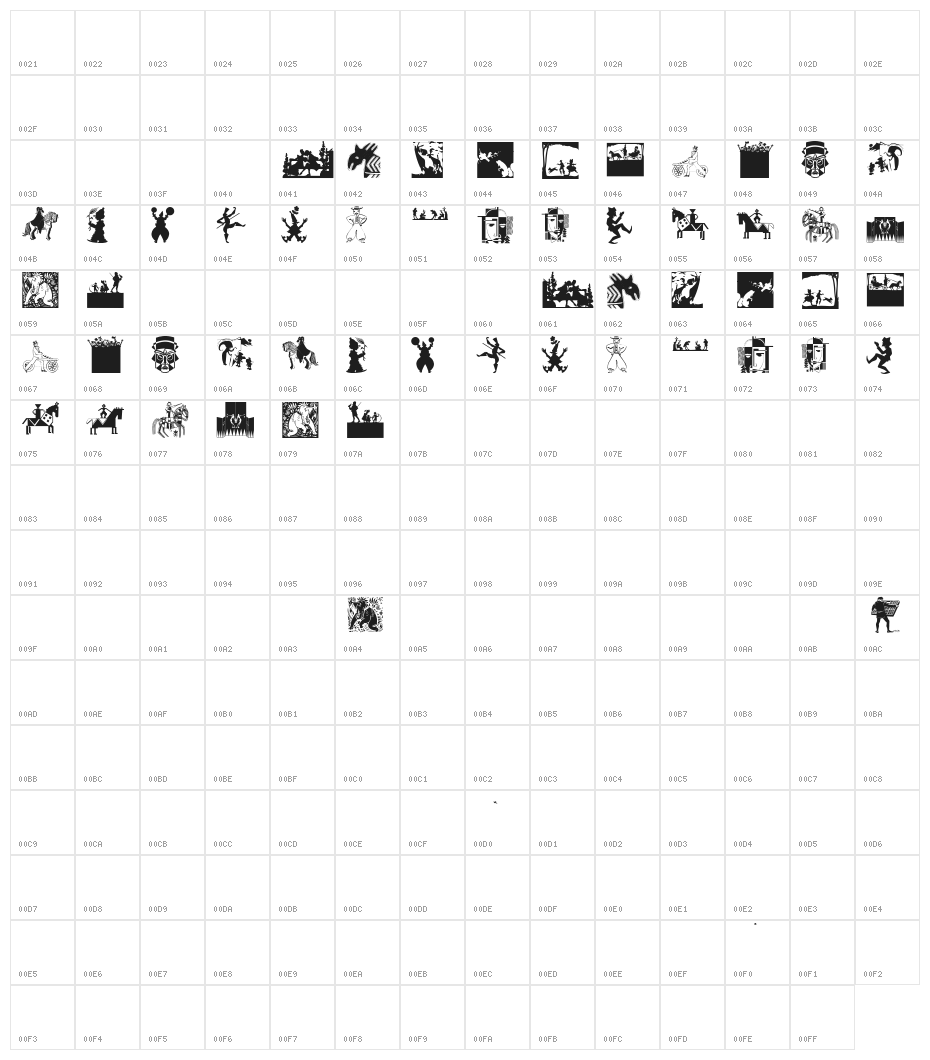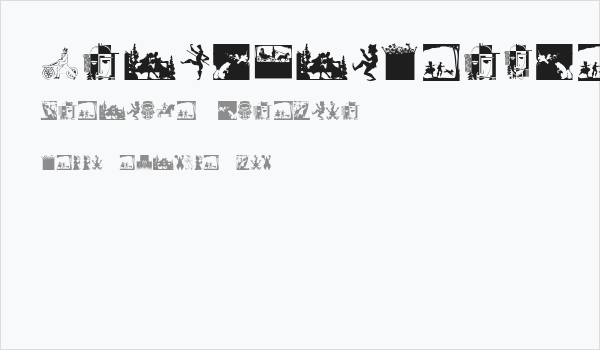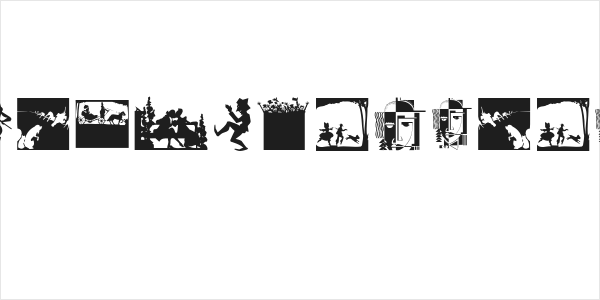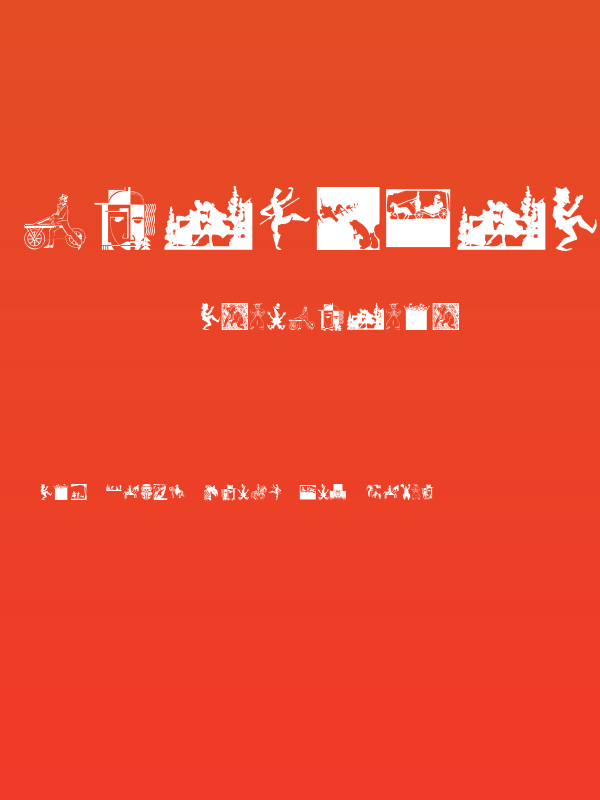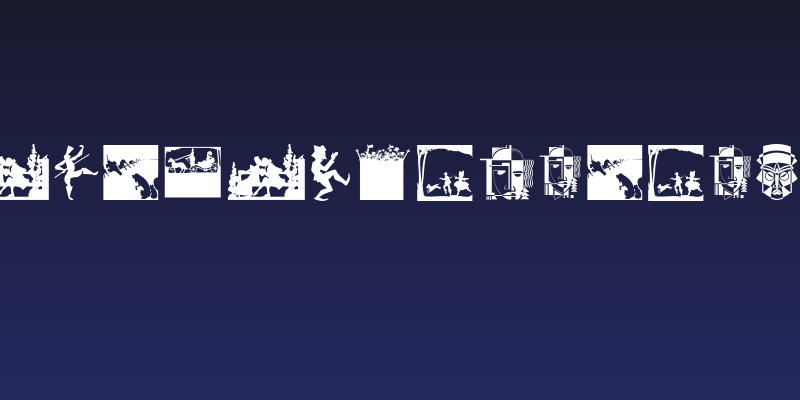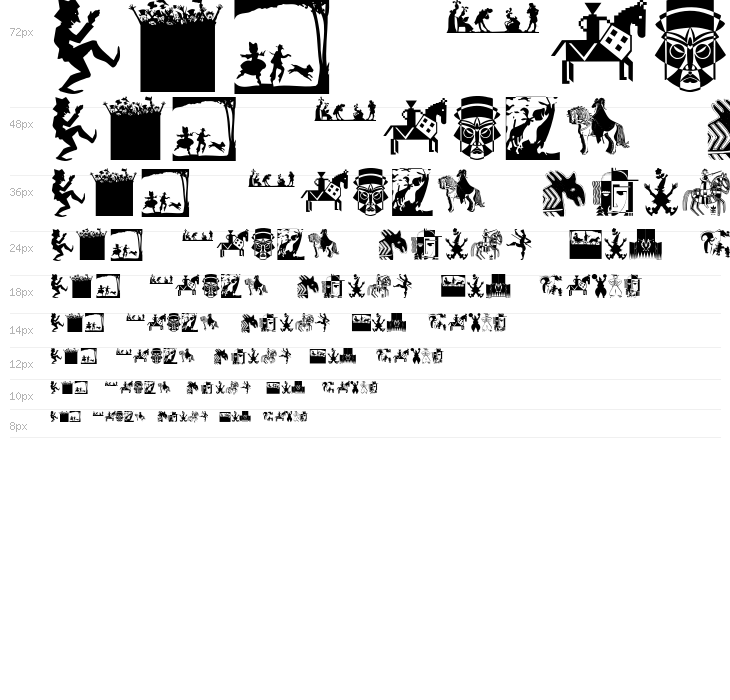
GrandfathersDesigns Font
GrandfathersDesigns Description
A decorative display font featuring intricate, silhouette-style illustrations of people, animals, and scenes with a vintage, storybook feel. Each character is represented by a unique pictorial design rather than traditional letterforms.
| Overall Style | Decorative, Vintage, Whimsical |
| Use Case | Logos, Headlines, Themed graphics, Decorative initials |
| Proposed Projects | ChildrenΓ’β¬β’s books, invitations, posters, themed event materials, storytelling graphics. |